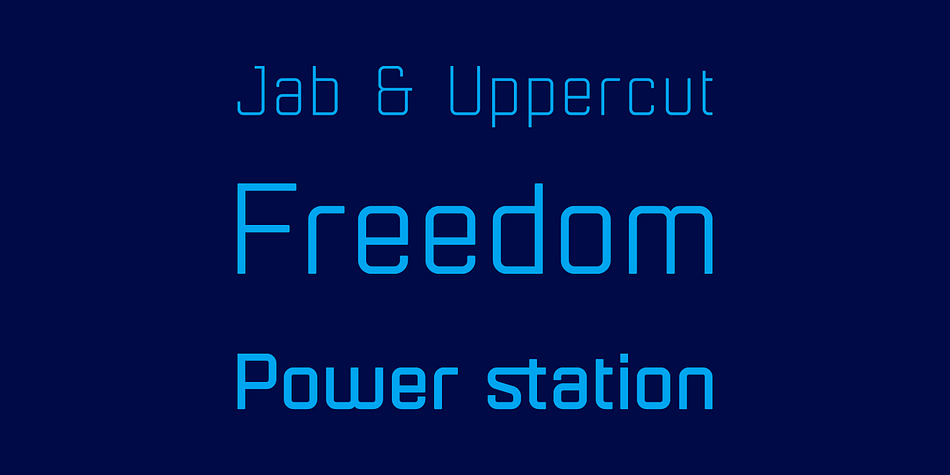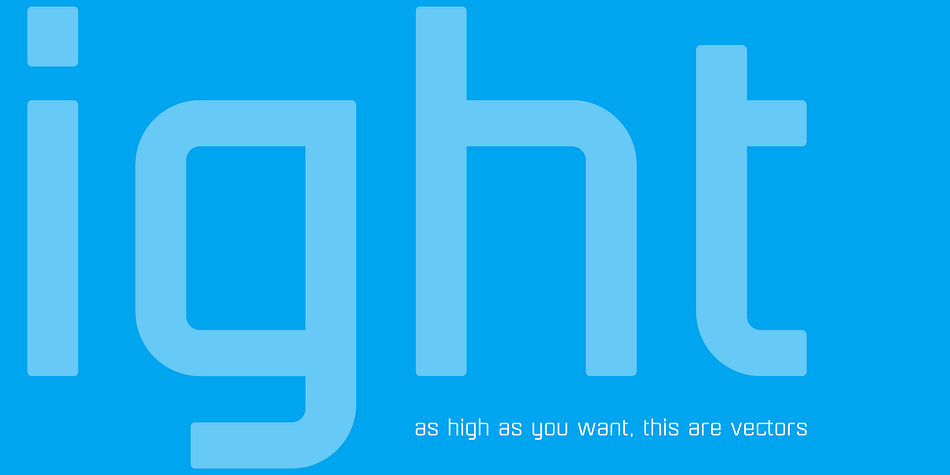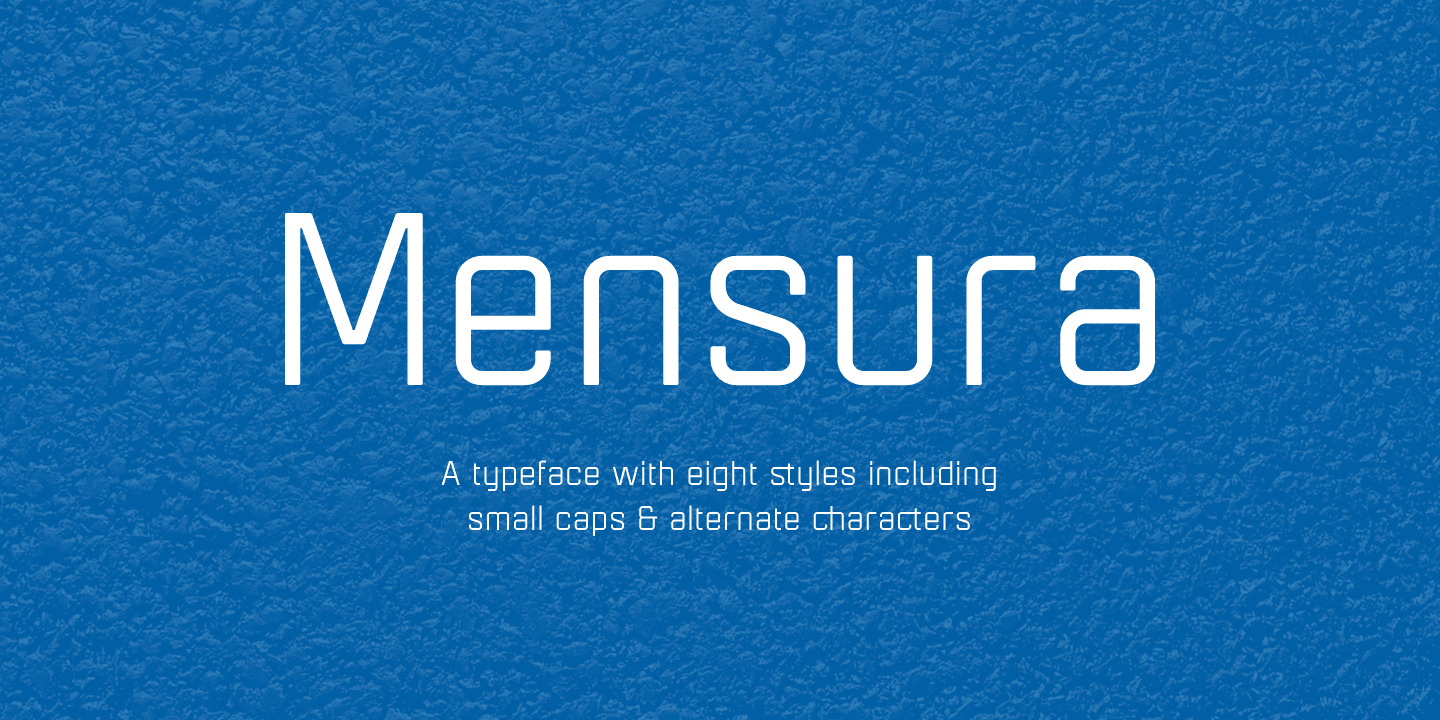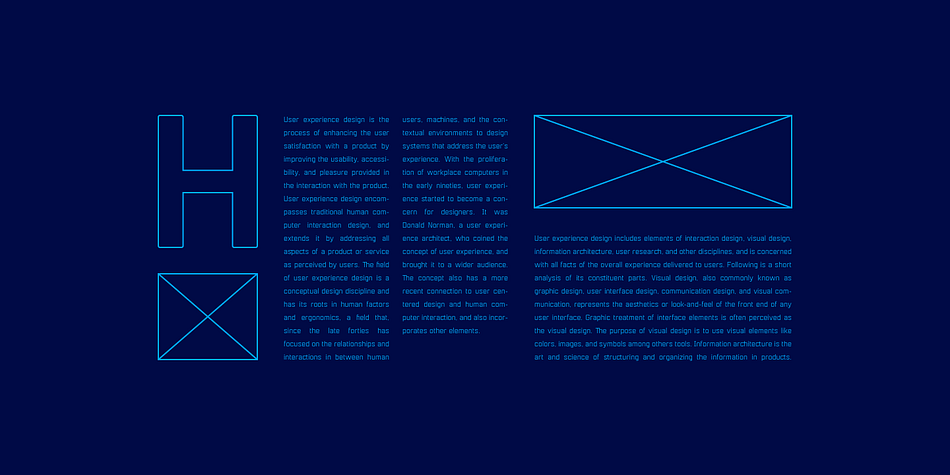
Mensura is a sans serif font family. This typeface has eight styles and was published by Graviton.
Mensura font family has been designed for Graviton Font Foundry by Pablo Balcells in 2012. It is a modular, geometric typeface with subtle rounded angles that provides a soft, pleasent appearence. It has been conceived to be primarily a display typeface, but given its clarity it can also be used for composing short and intermediate length texts.
Mensura consists of 8 styles and 4 weights plus italics. Each containing small caps and several alternate characters.